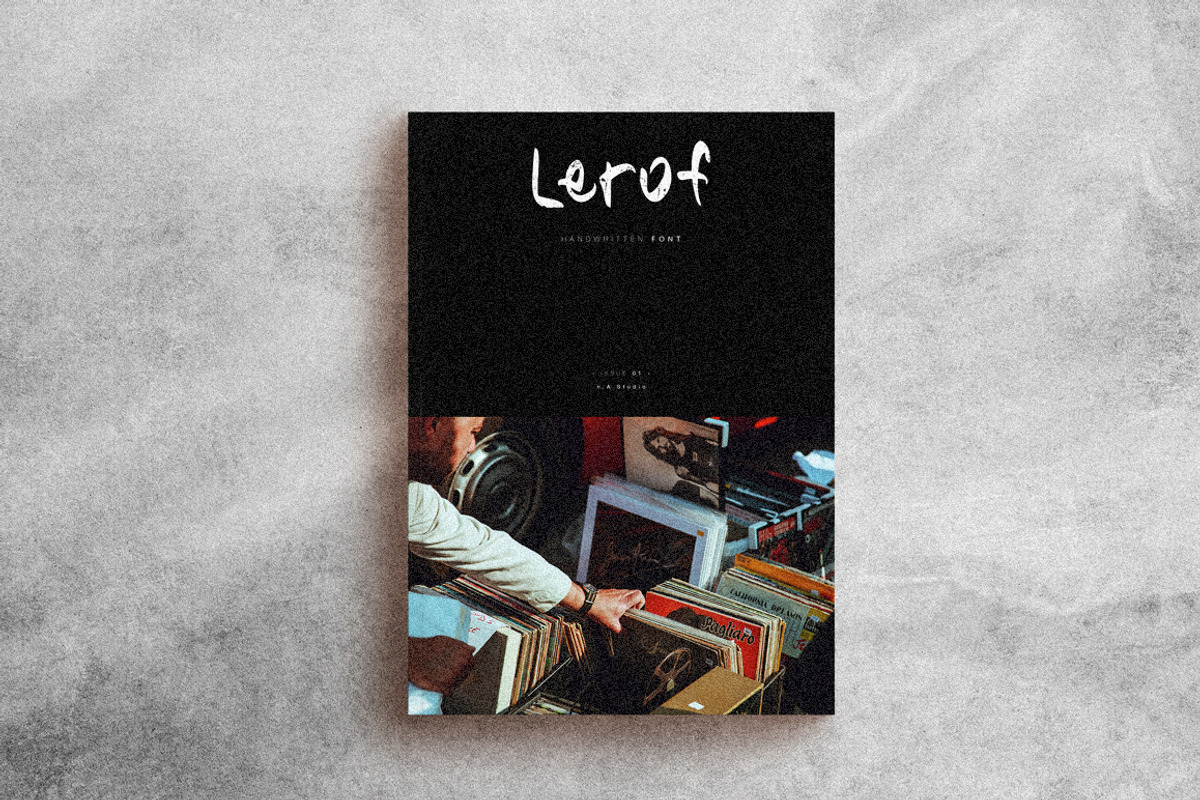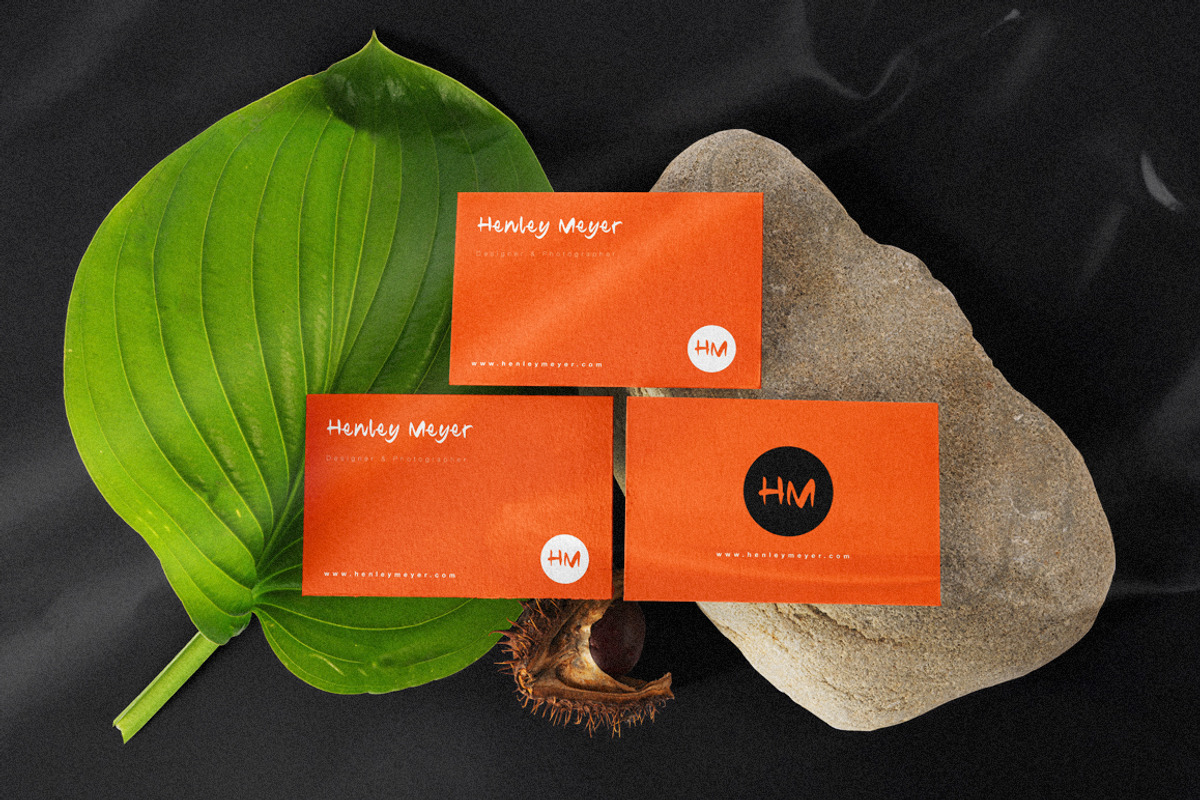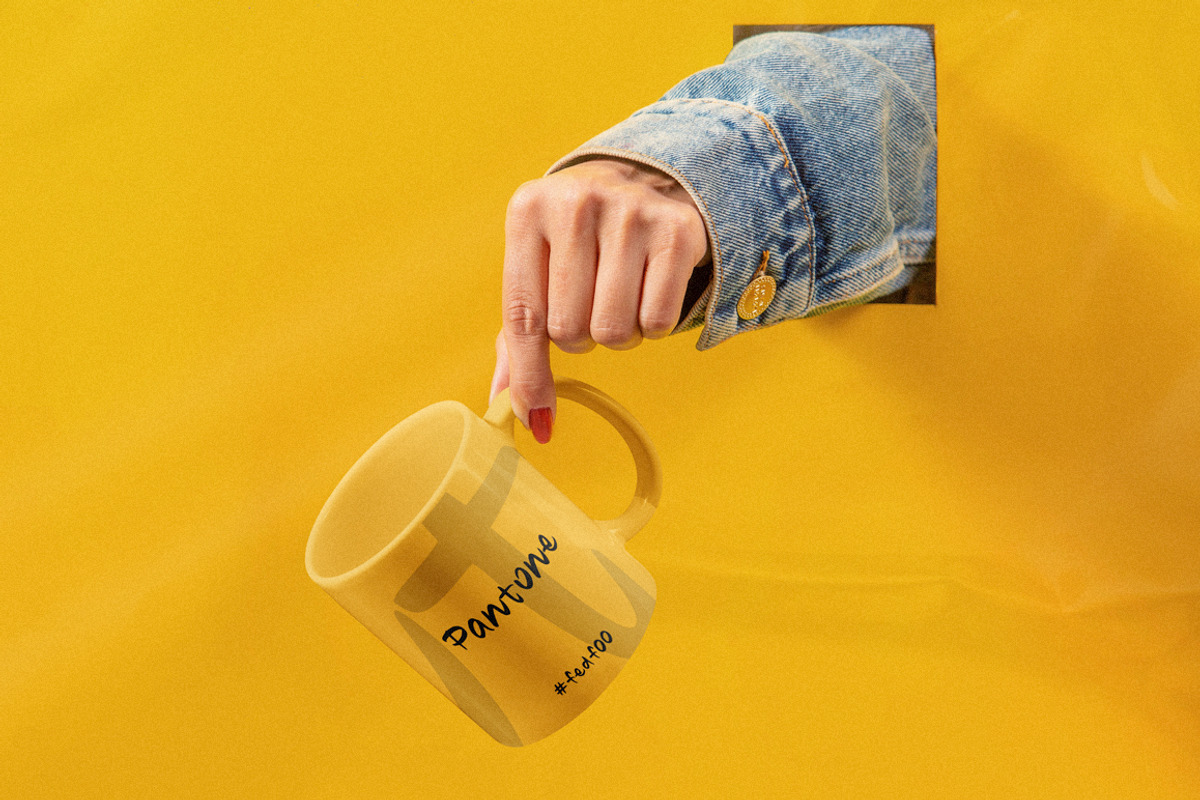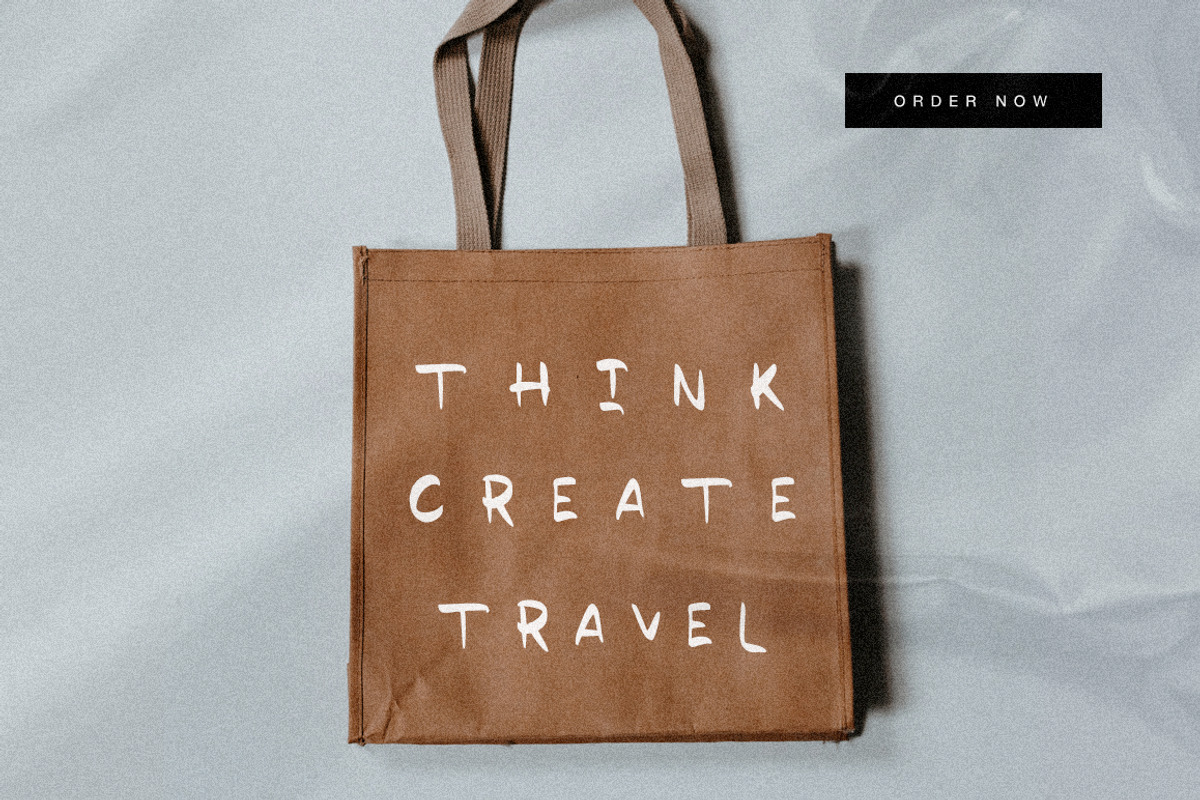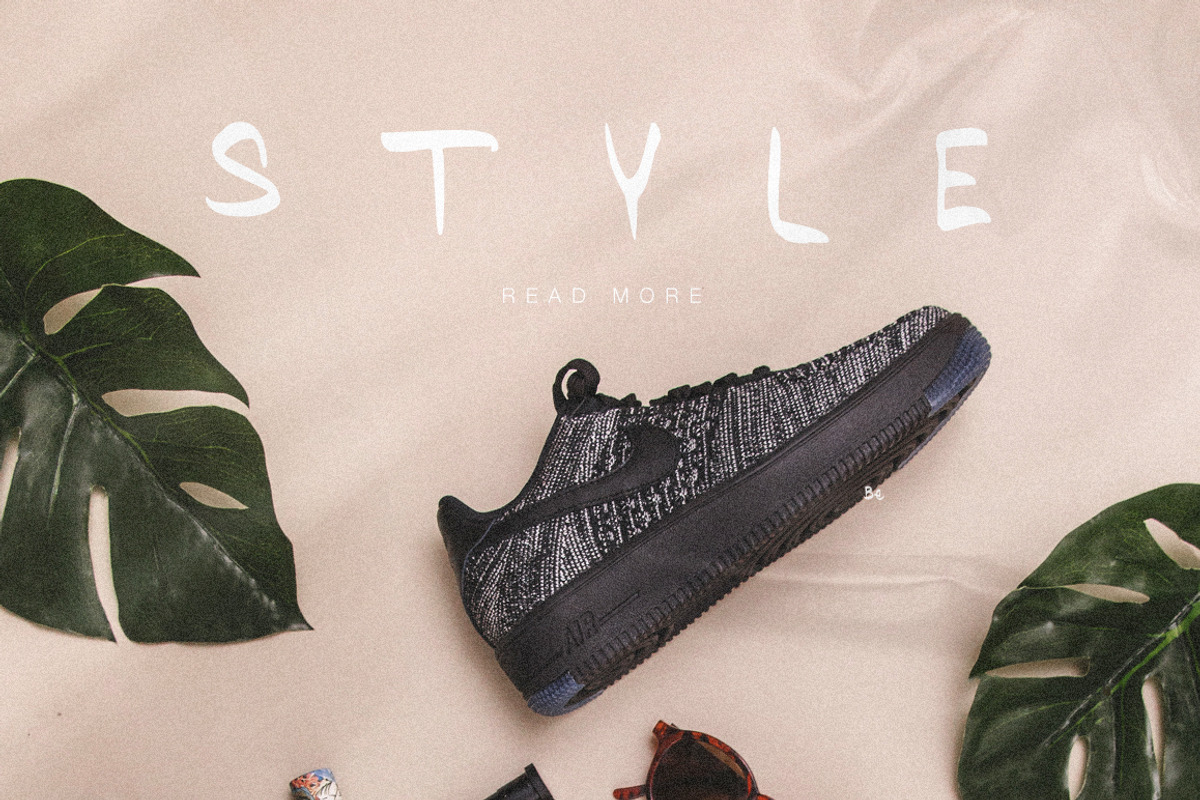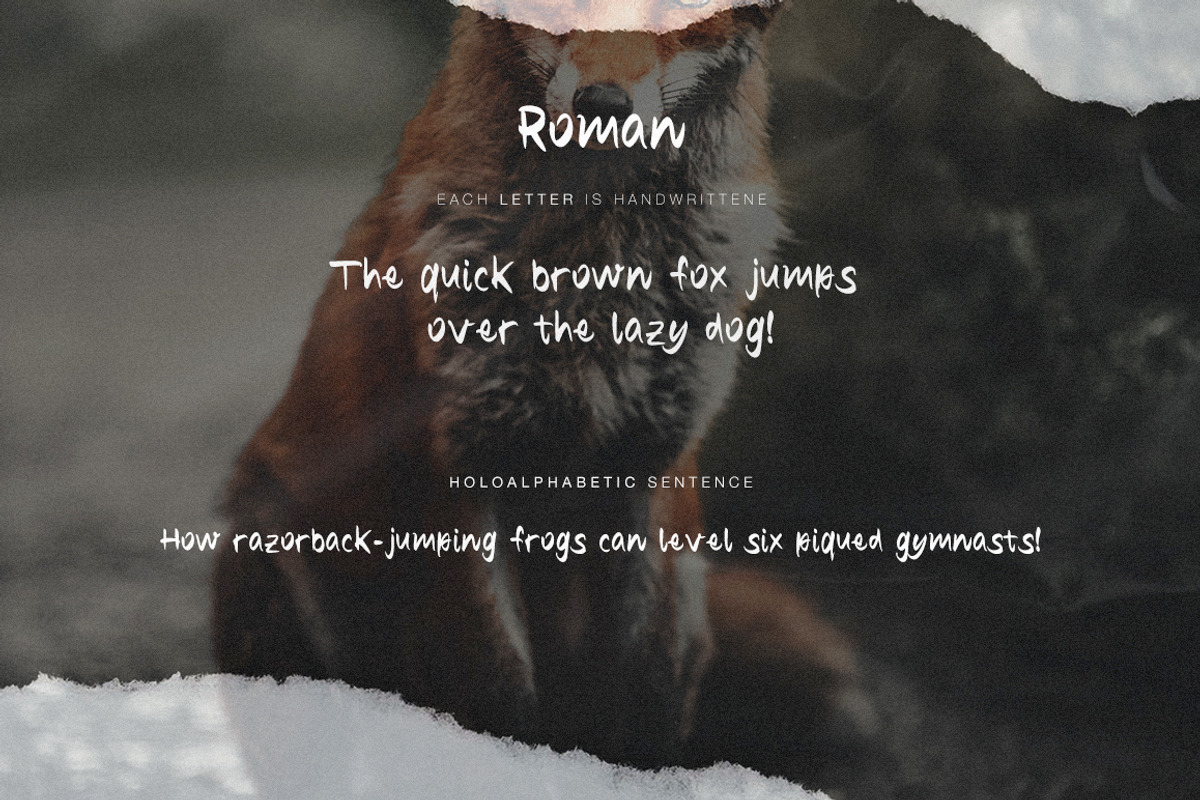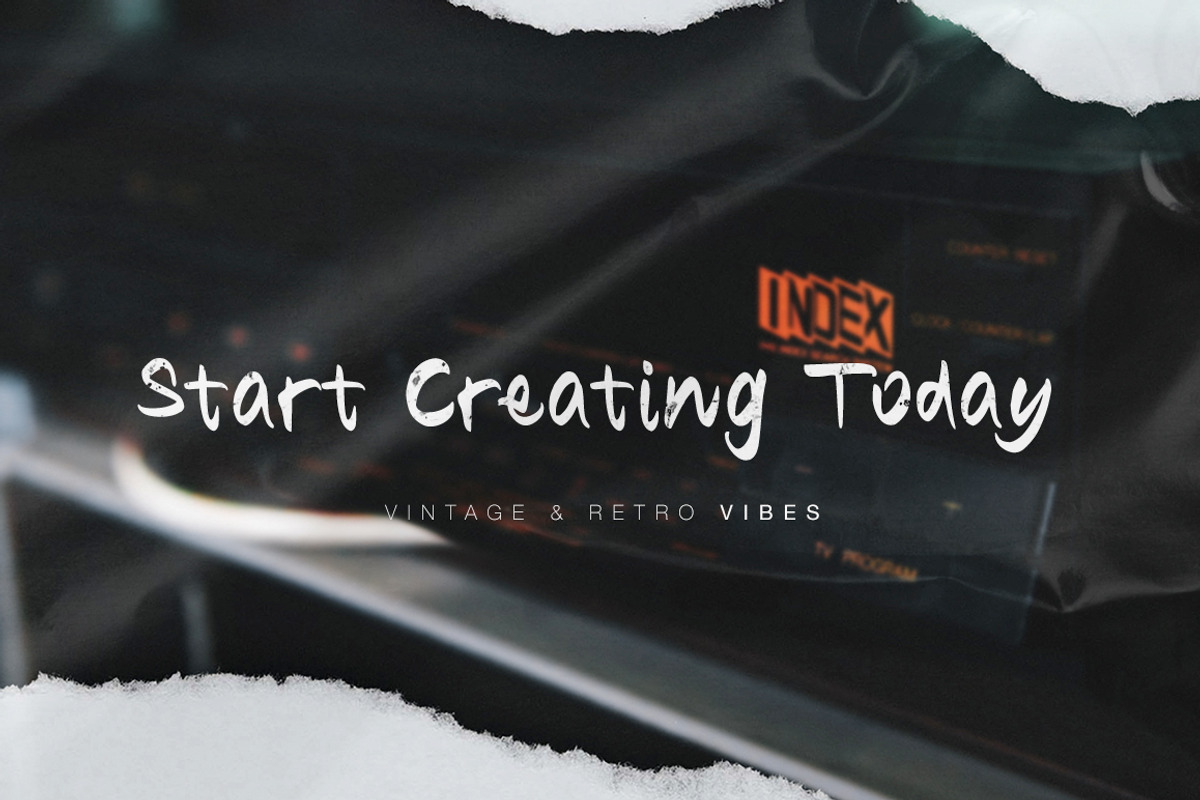
Lerof Font
Lerof - A Timeless Script
Create bold, gorgeous headlines and cool designs with a vintage flair. Lerof's contrasting lines and curved terminals give a sleek, elegant look to logos, holiday and business cards, quotes, advertisements, and more. The font is written by hand and each letter is unique; not one element in the font is repeated! Many different variation of letter forms to choose from.
Create something beautiful today with Lerof.
Discretionary Ligatures
Multilingual support for various languages including: French, German, Spanish, Portuguese, Italian, Dutch, Finnish, Swedish, and more.
Why Lerof Font is worth a look
Lerof Font by n.A Studio fits naturally into Branding, posters, packaging, typography.